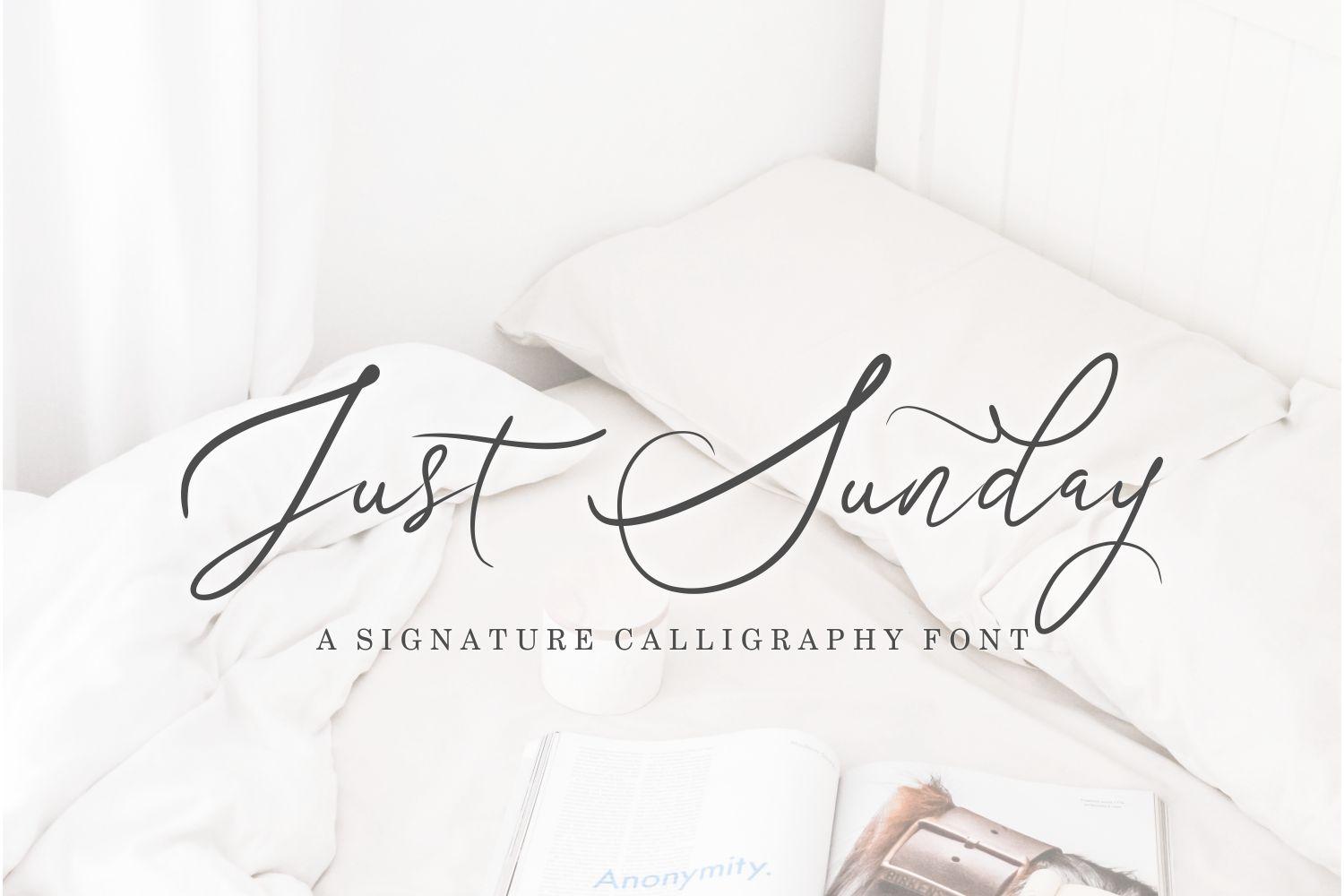
Just Sunday Font Description
The Just Sunday is a fun script font. It has a smooth, handwritten style, which is perfect for branding projects, product packaging, and more!
It can be used simply as a stylish text overlay to any background image, or anything requiring a sprinkle of elegance!